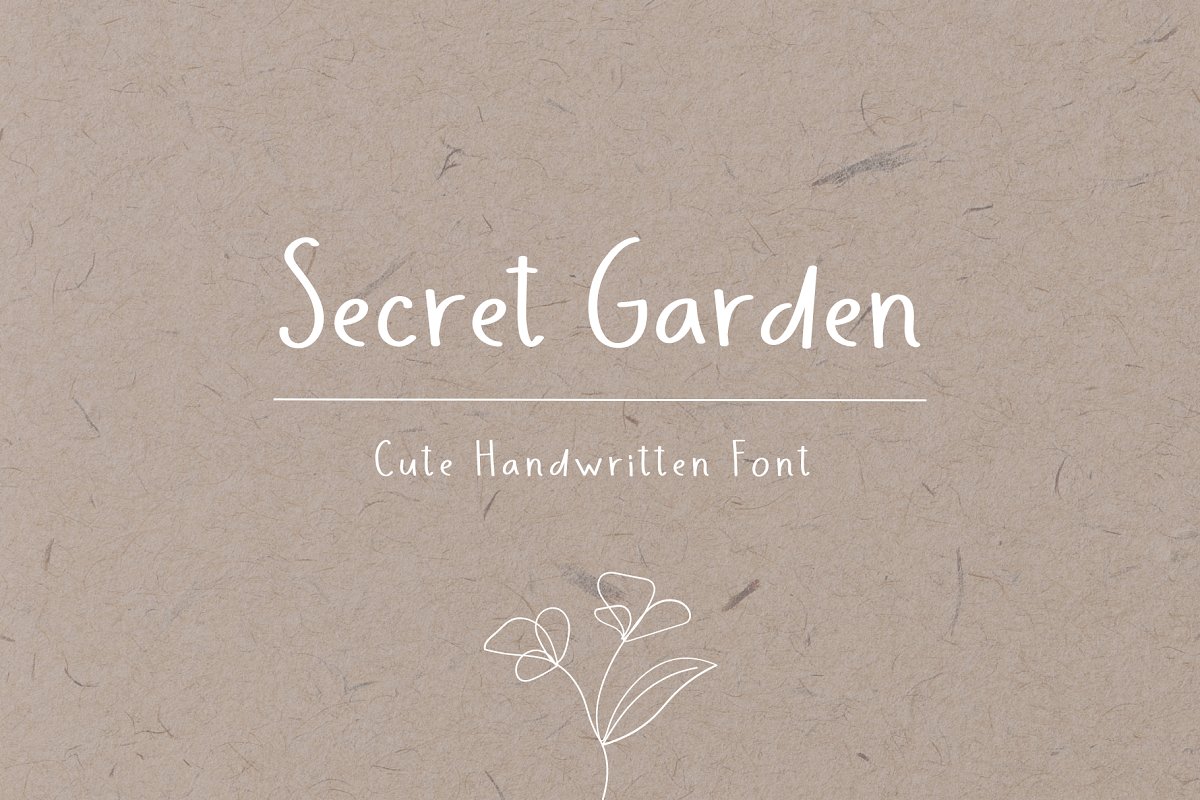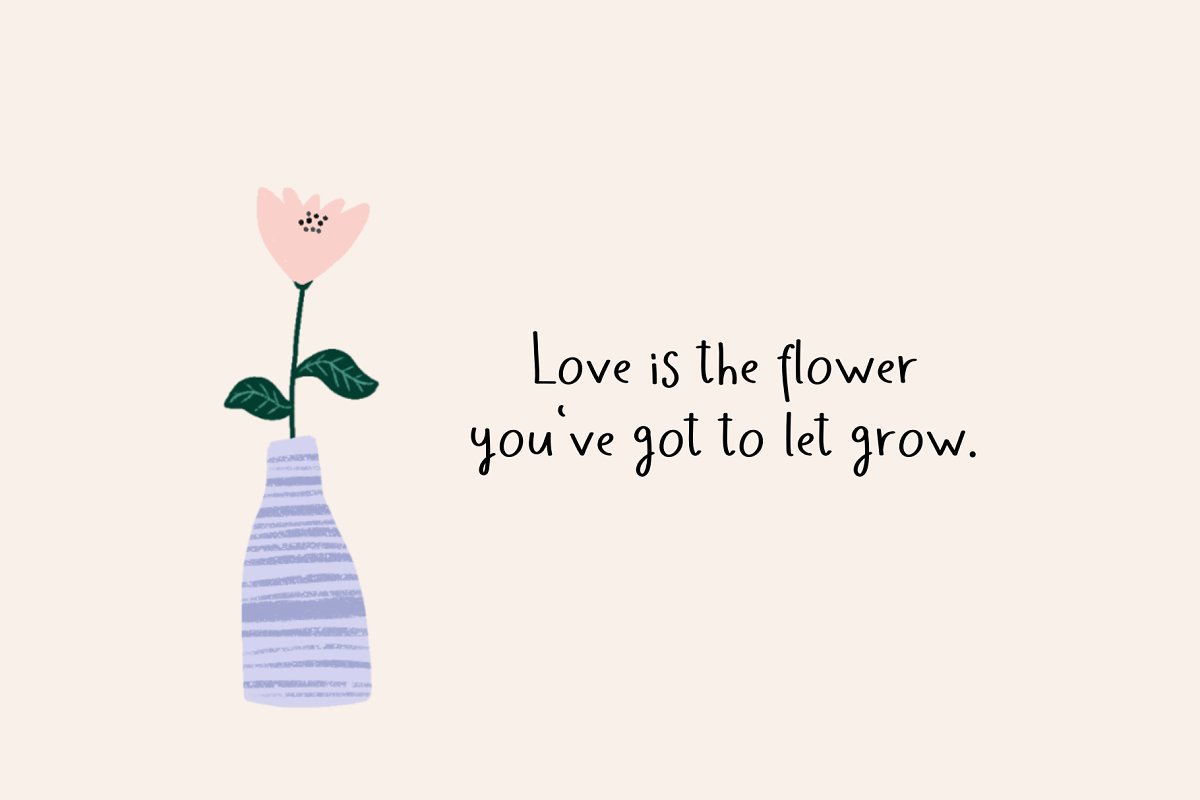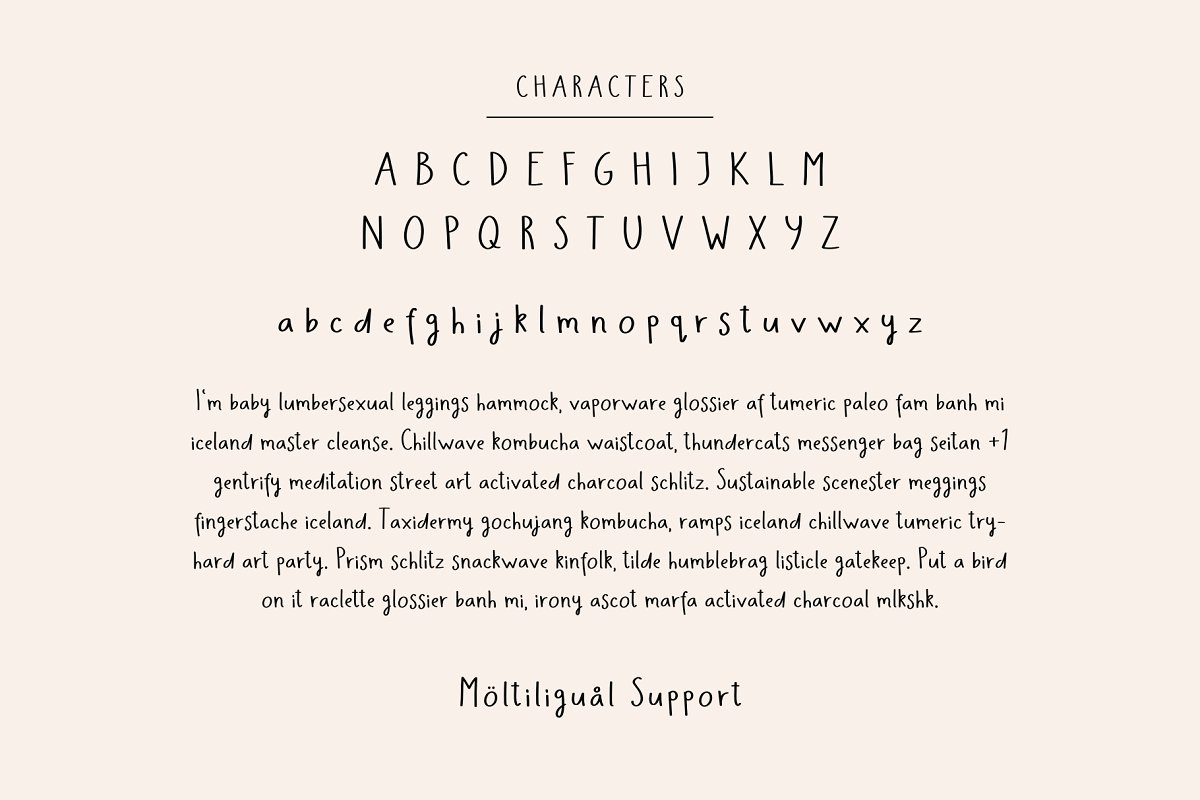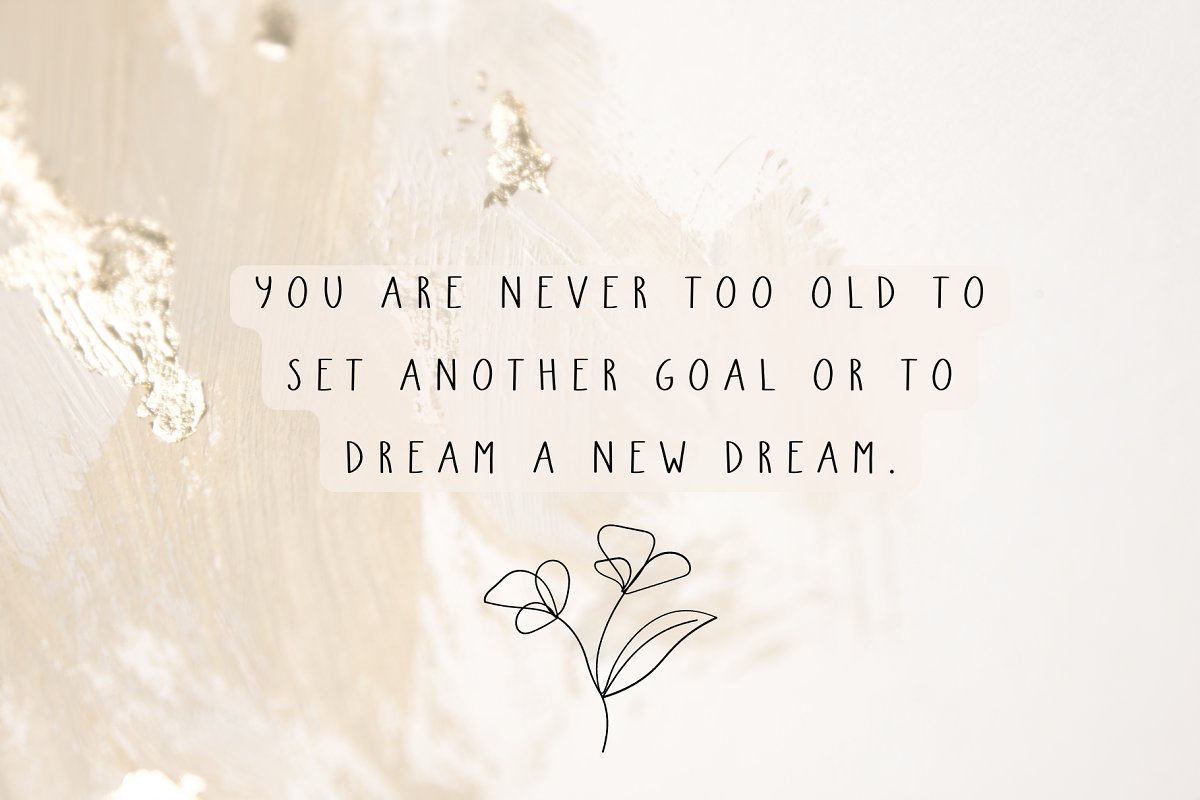
About the Secret Garden
Add some sweetness to your designs with this adorable font! It’s perfect for any project that needs a touch of whimsy and charm, From greeting cards and invitations to social media graphics and branding materials, our cute font will bring a playful energy to your work, This font is also prefect to spice up your digital notes! With its playful curves and delightful details, this font is sure to make your designs stand out